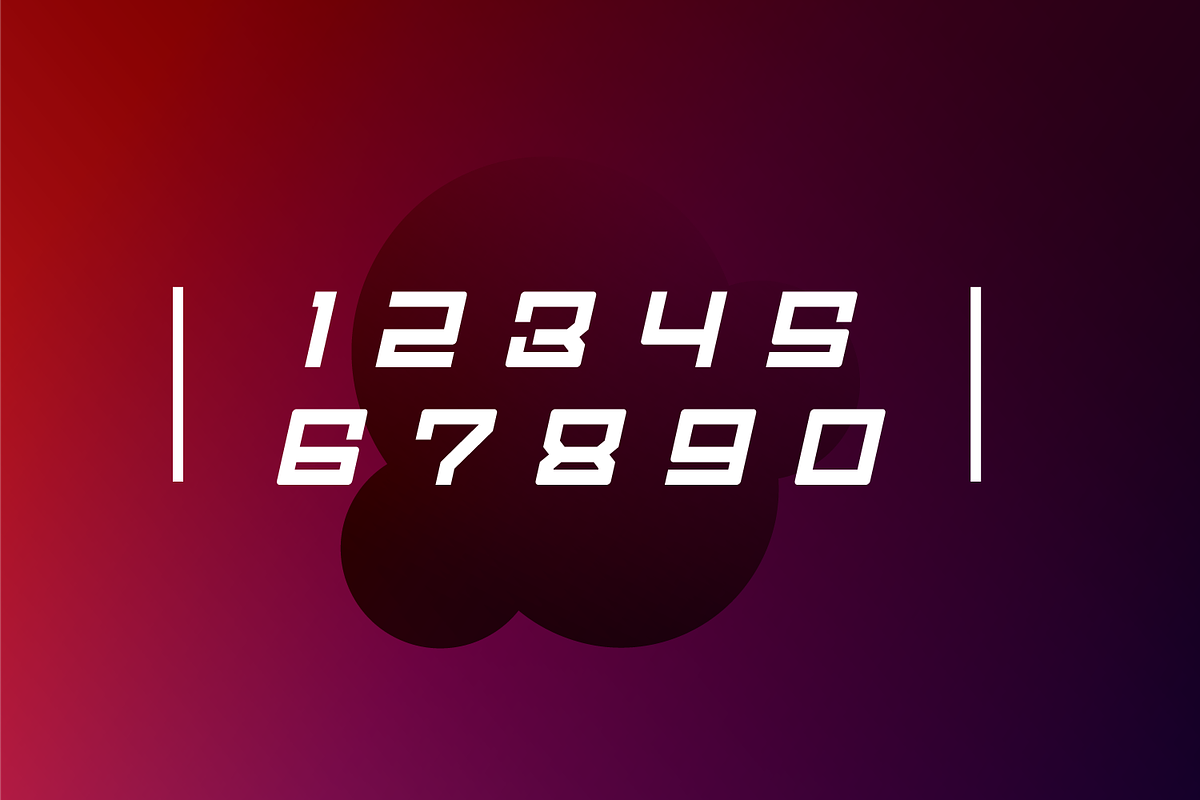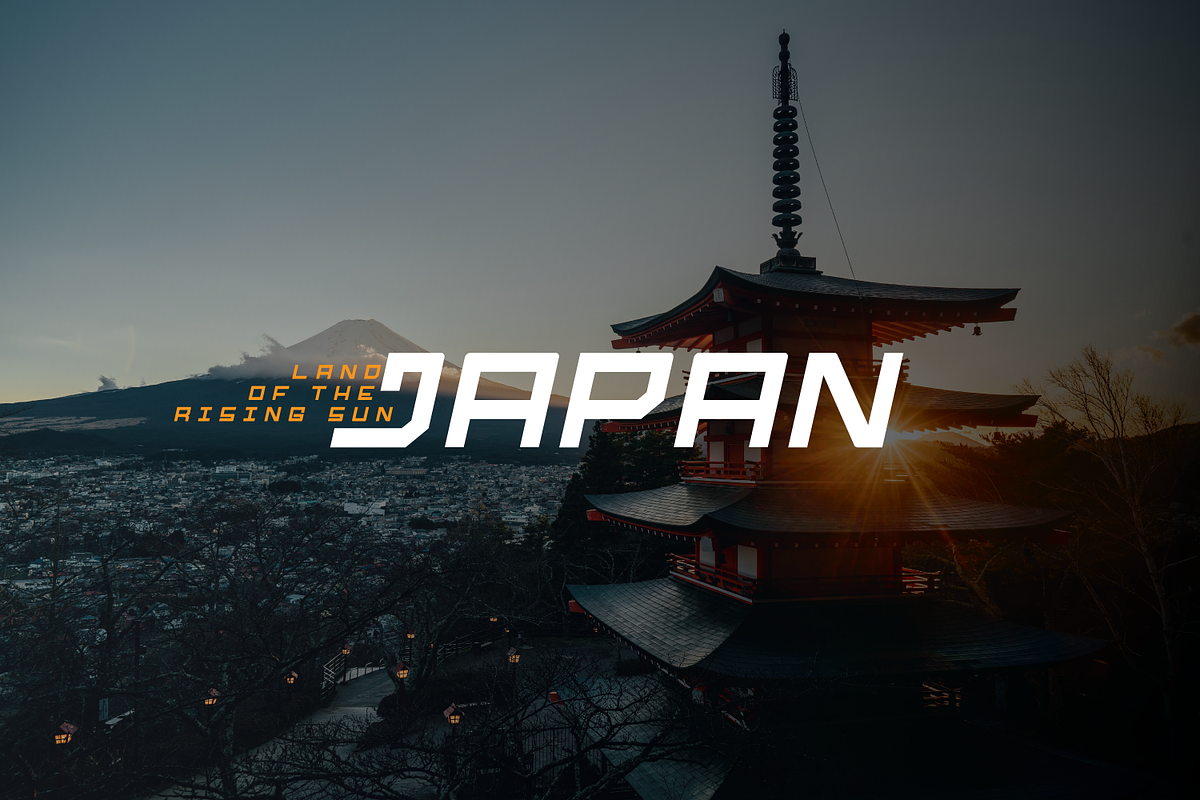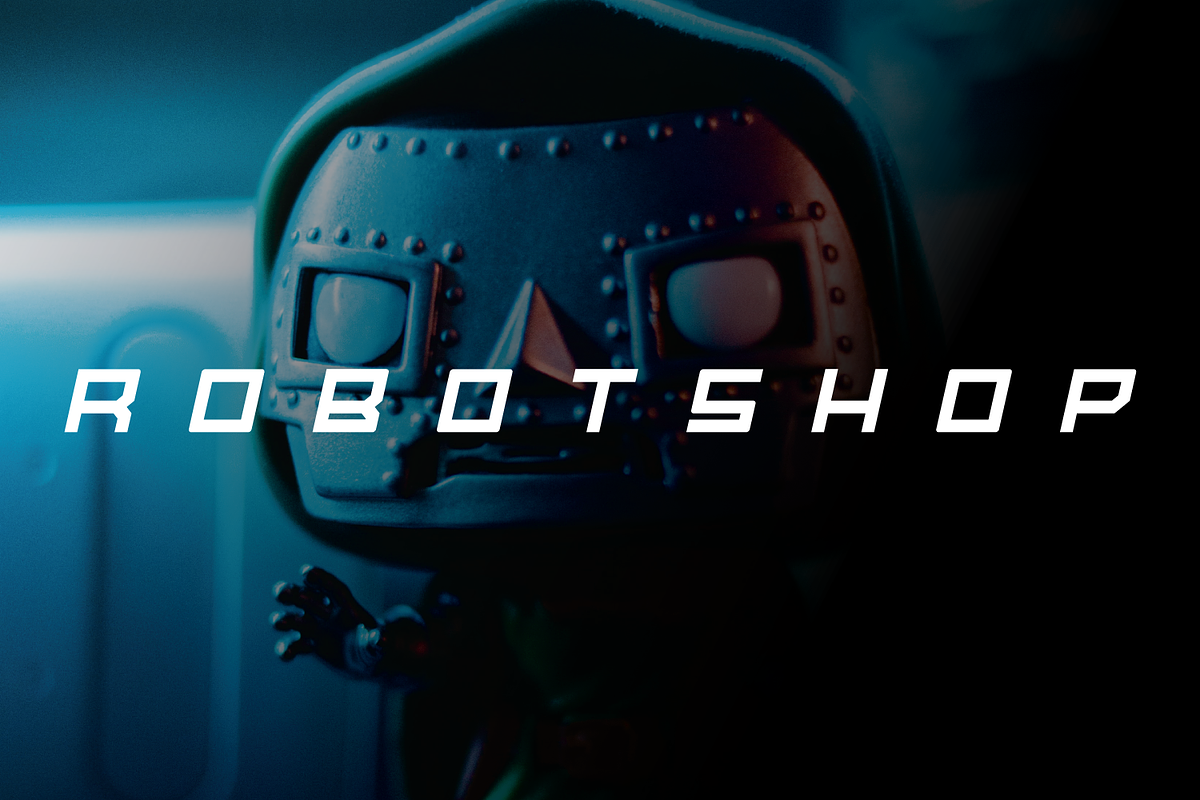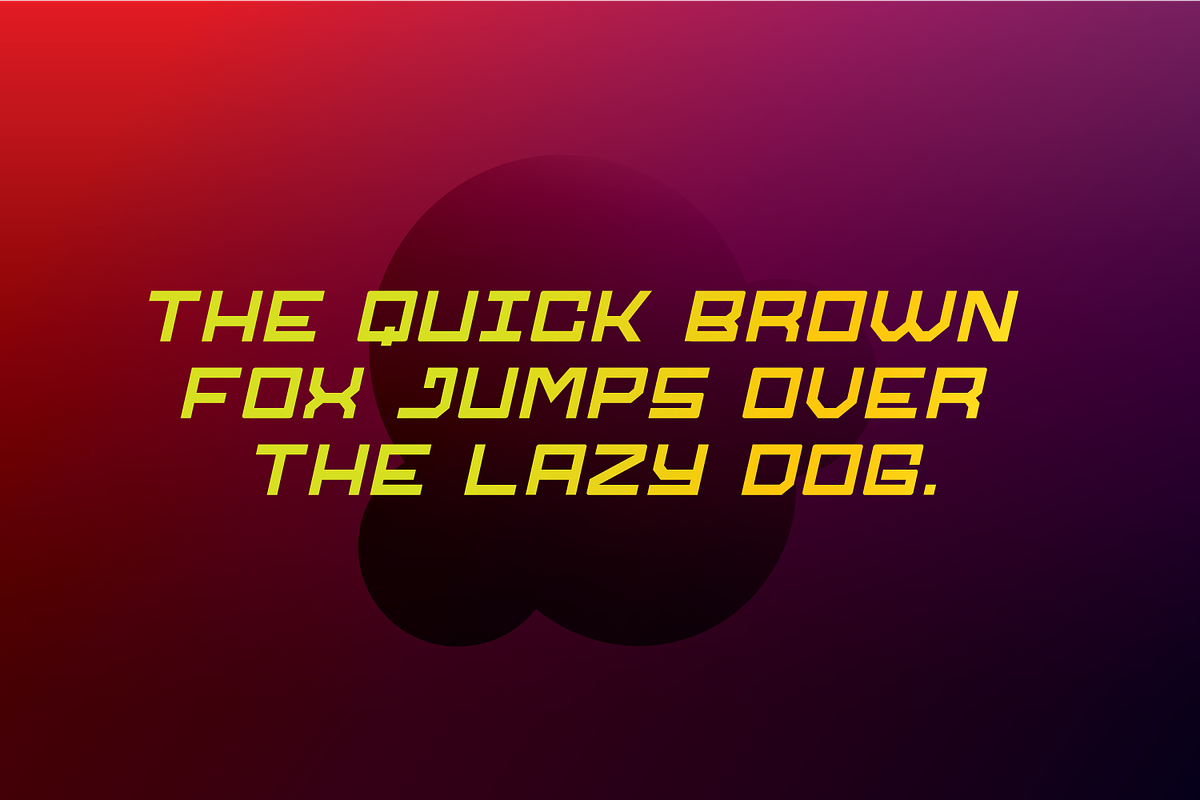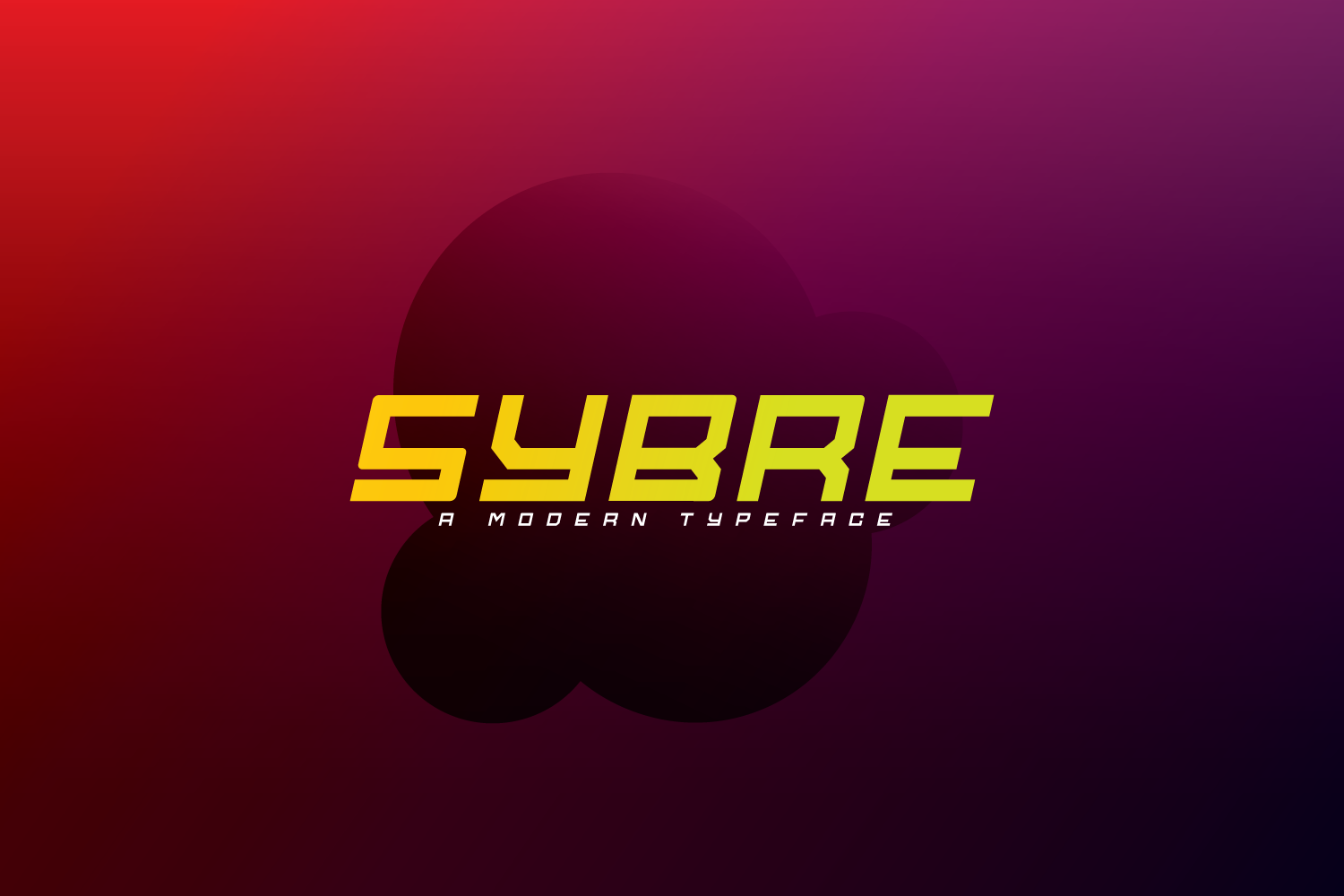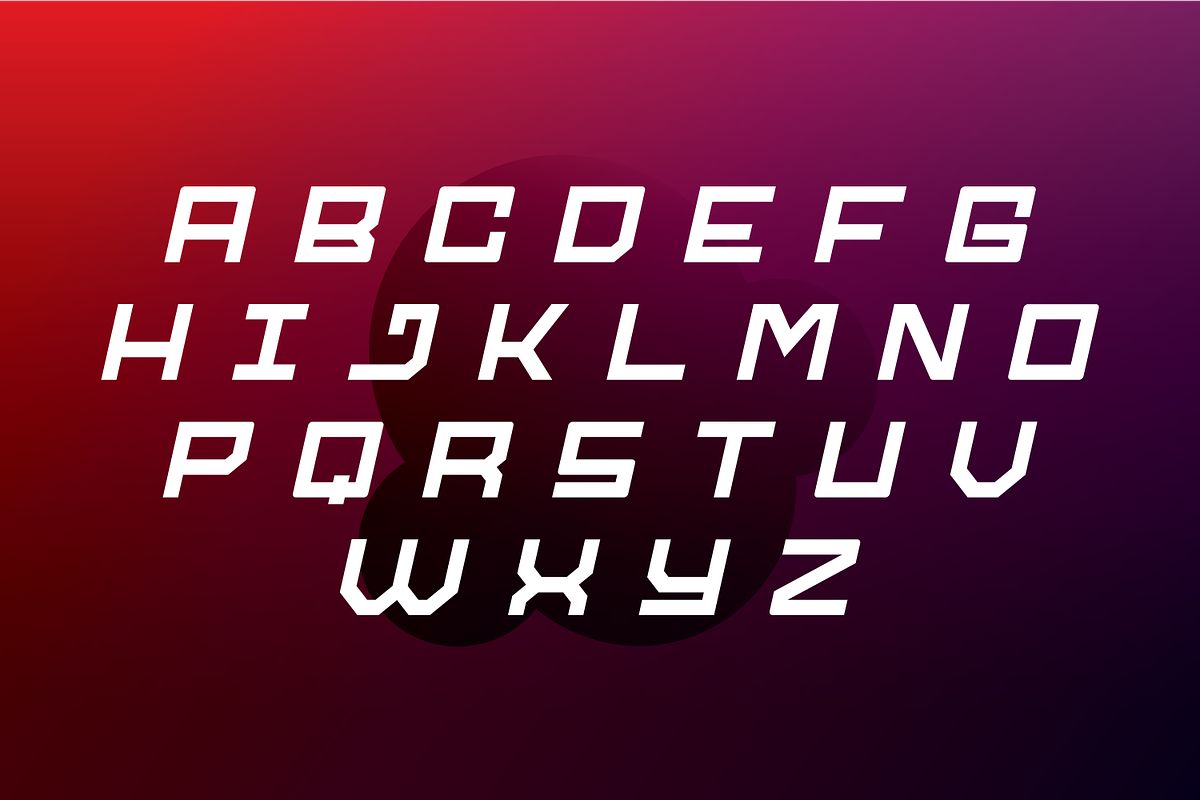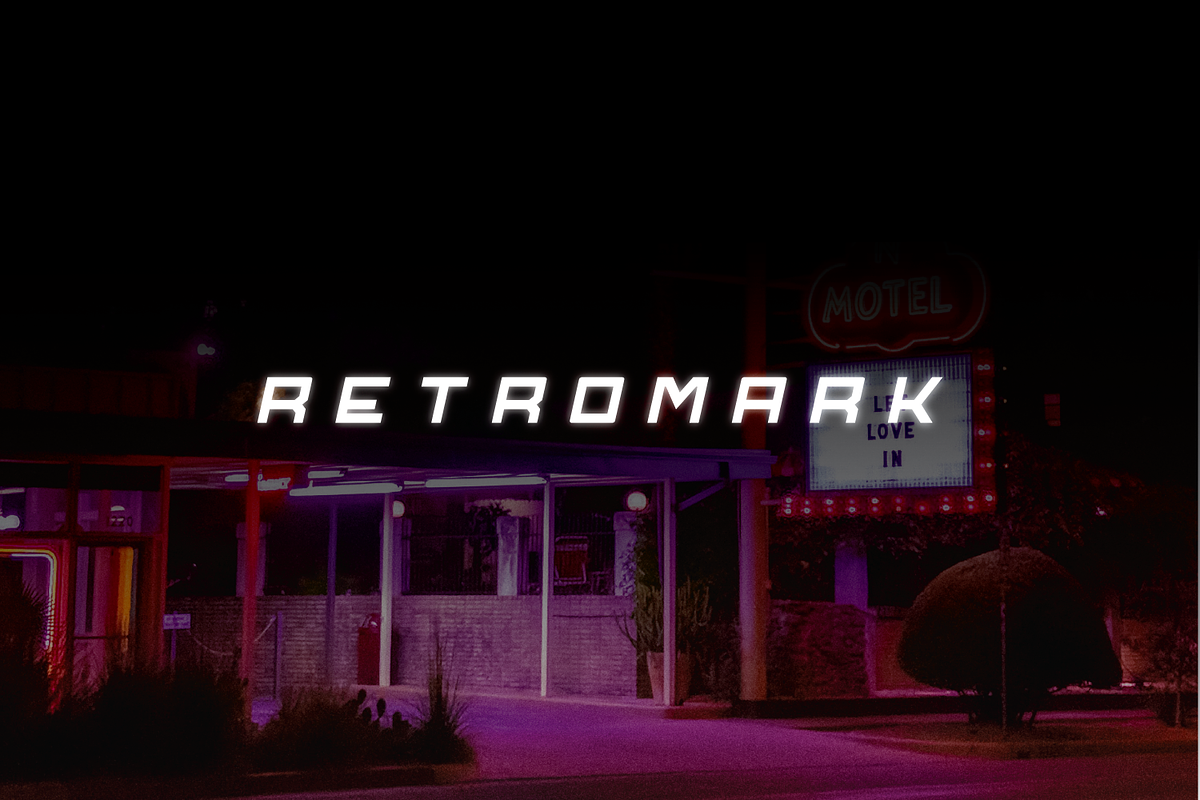
Sybre - Futuristic Font
Sybre a modern oblique font with geometric style that will make your design looks modern and futuristic. this font is appropriate for your branding, logo design, shirts, etc.
- Sybre- A clean San serif font including Upper & Lowercase characters(ALL CAPS)